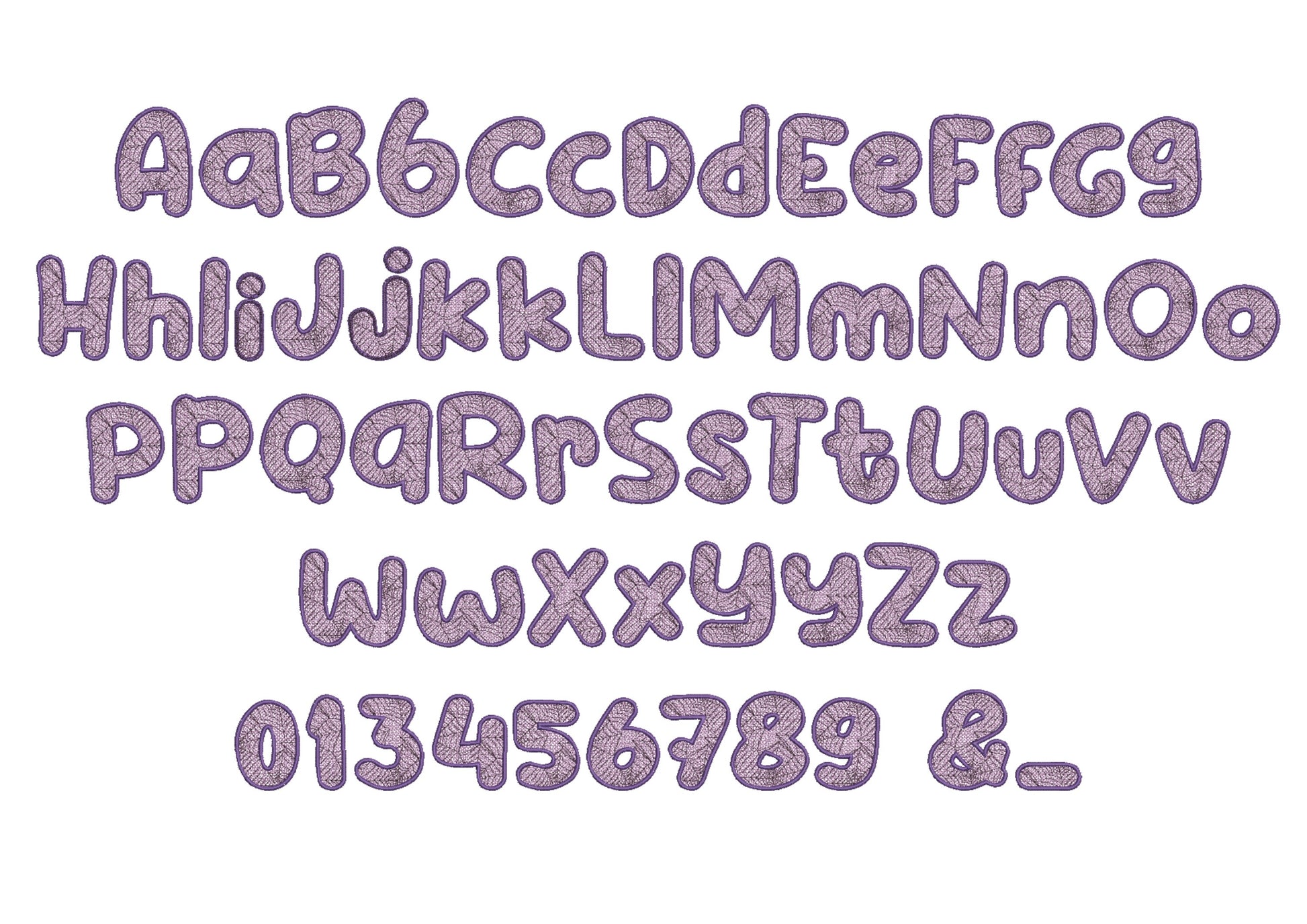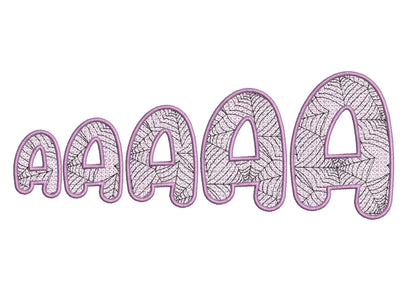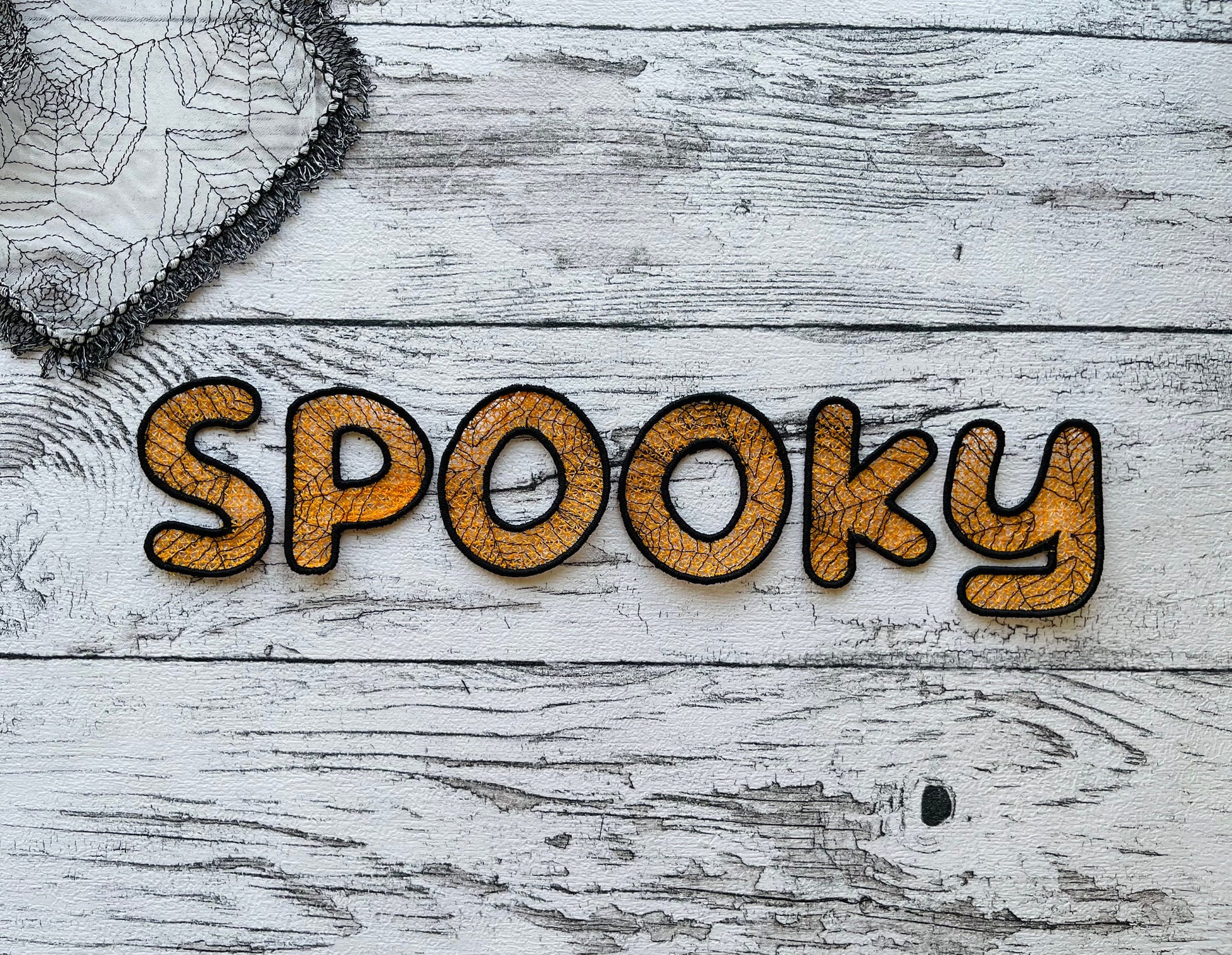
Halloween Spooky Spiderweb Lace Font FSL
Or click to open the linkA spooky spider web font in free standing lace. Stitch the letters on wash-away stabilizer and hang them as Halloween decor, garlands and ornaments.
Uppercase and lowercase letters, numbers 0 to 9, an ampersand and a dash, in five sizes: 2, 2.5, 3, 3.6 and 4.3 inches. Each letter is a lacy spider web that stands on its own once the stabilizer is rinsed away.
- Free standing lace spider web font
- Uppercase and lowercase letters, numbers 0-9, & -
- 5 sizes, 2 to 4.3 in